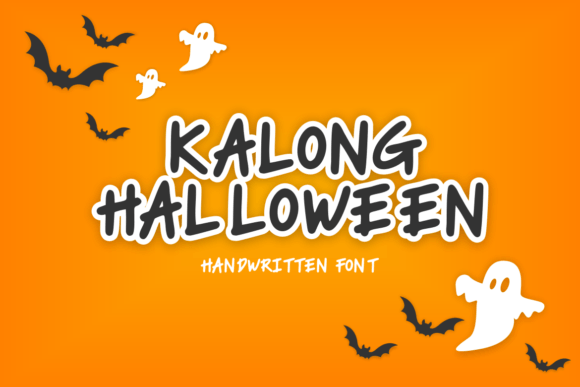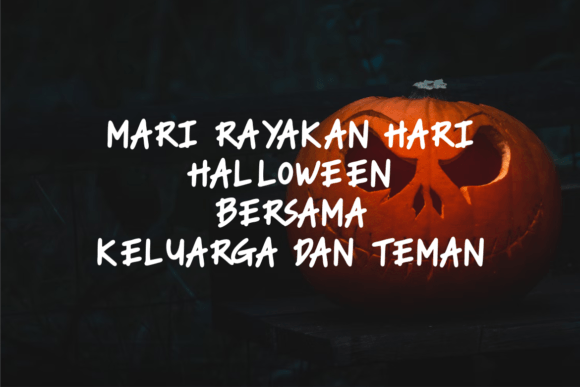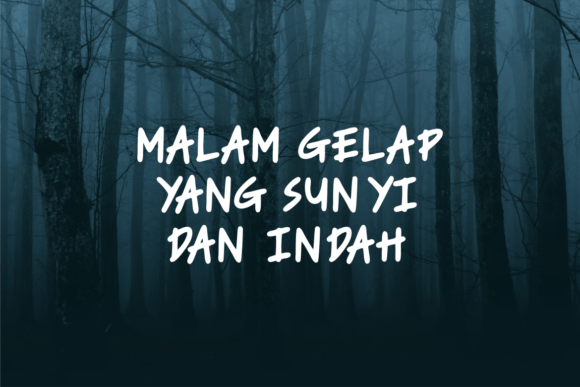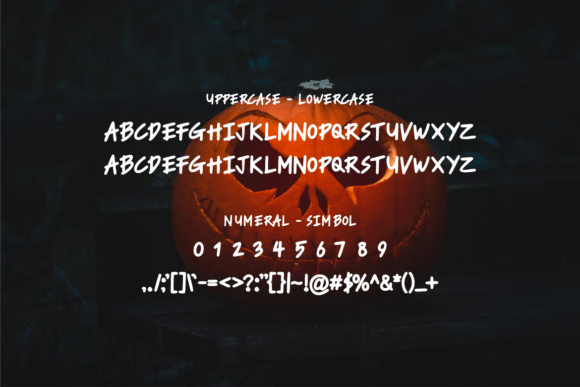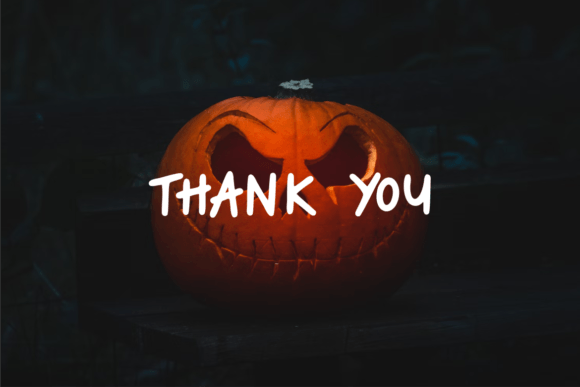
The Spooky Charm of the Kalong Halloween Font
As the sun sets on a crisp autumn evening, and the air is filled with the sweet scent of pumpkin spice, I find myself drawn to the world of Halloween design. There’s something about the eerie atmosphere and the creativity that comes with it that sparks my imagination. The sound of creaking doors, the howling wind, and the flickering jack-o-lanterns all blend together to create the perfect setting for unleashing my inner designer.
When it comes to making a lasting impression on your audience, a bold and eye-catching font can make all the difference. That’s where the Kalong Halloween Font comes in – an all-caps, attention-grabbing design that’s perfect for haunted house flyers, party invitations, and any other Halloween-themed project you can think of. This versatile font is a valuable asset for designers looking to add a touch of spooky sophistication to their creations.
Kalong Halloween Font Key Features
- Size and Resolution: The font comes in a single size, but it’s highly scalable and can be used for various designs, from small titles to large headlines. The recommended resolution for optimal display is 300 DPI.
- Unique Characteristics: The Kalong Halloween Font features a unique, hand-drawn design with intricate details and a spooky atmosphere, making it perfect for Halloween-themed designs, horror movies, and dark fantasy art.
- Character Set: The font includes a wide range of characters, including uppercase and lowercase letters, numbers, punctuation marks, and special characters, allowing for endless design possibilities.
- Font Style: The Kalong Halloween Font has a bold, gothic style with a mix of curved and straight lines, creating a sense of mystery and eeriness.
Kalong Halloween Font Review
When I first saw the Kalong Halloween Font, I was immediately drawn in by its spooky charm ✨. The font’s unique, hand-drawn feel and eclectic mix of shapes and styles give it a real personality that’s hard to resist. The font’s versatility also shines through, as it can be used for everything from horror movie posters to children’s Halloween party invitations.
- ✨ Unique, hand-drawn feel that sets it apart from more generic fonts
- ✨ Versatile and can be used for a wide range of applications
- ✨ Includes a variety of international characters and symbols
- ⚠️ The font’s unique feel can be a double-edged sword – while it’s great for some applications, it may not be suitable for more formal or professional projects
- ⚠️ The font’s irregularities can make it difficult to read at small sizes or in certain contexts
- ⚠️ Some users may find the font’s more extreme characters (e.g. the ghosts, bats, etc.) to be overly kitschy or cheesy
Overall, I think the Kalong Halloween Font is a fun and versatile choice for designers looking to add a little spooky flair to their projects. While it may not be the best choice for every application, it’s certainly worth considering for any Halloween-themed or horror-inspired design work.
Getting the Most Out of Kalong Halloween Font
To get the most out of the Kalong Halloween Font, use it in creative and spooky ways such as:
– Creating Halloween invitations and party decorations.
– Designing spooky book covers and posters.